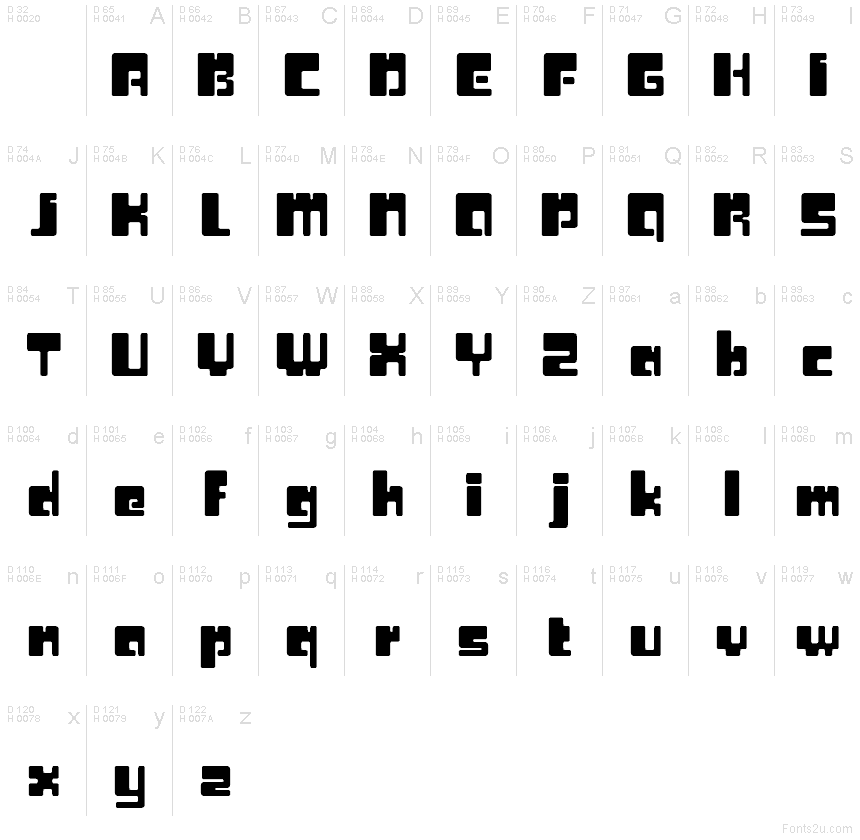
CS Flexion Regular Demo
CS Flexion font by Craft Supply Co. introduces a striking expanded, bold font with distinct geometric styles and uniform spacing. This futuristic display font is built from shape-constructed characters that give it a structured look with technical aspects that make its overall design simply modern.